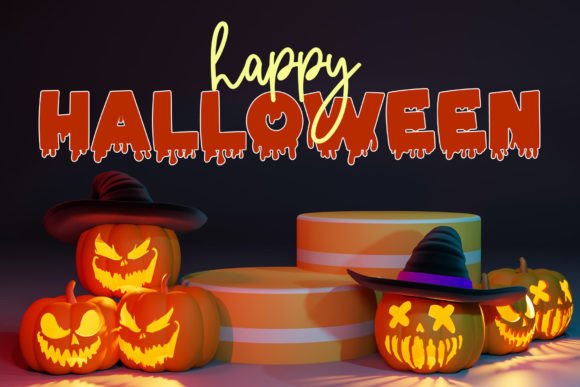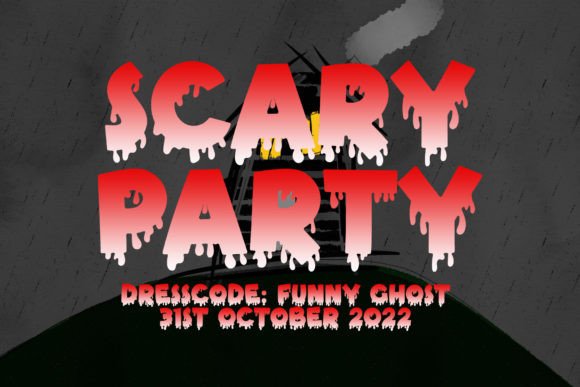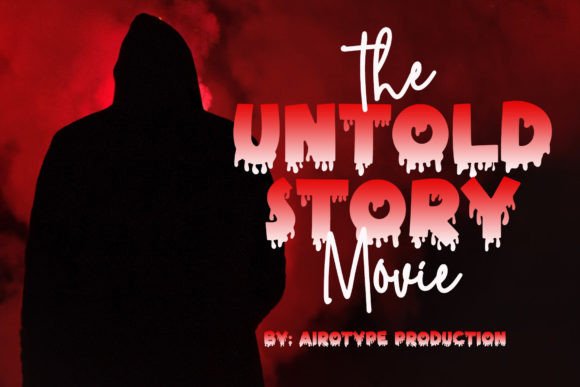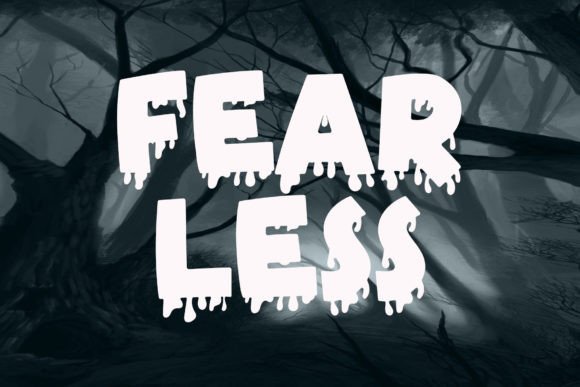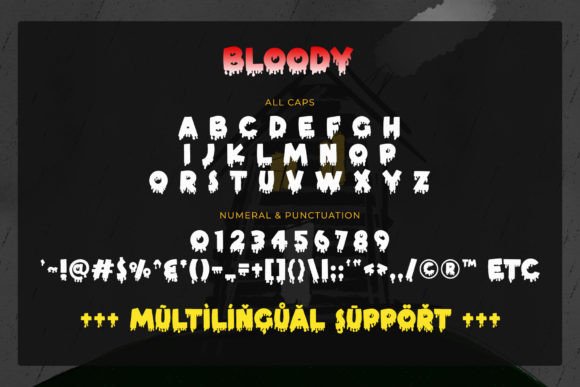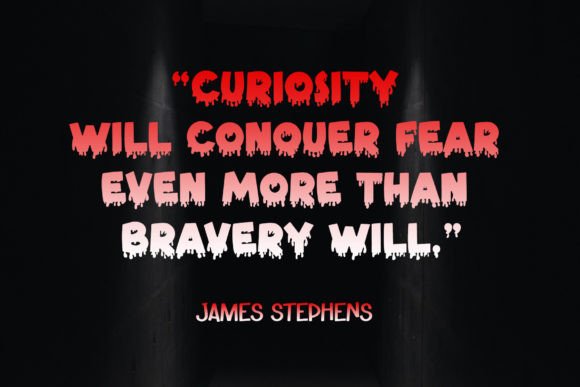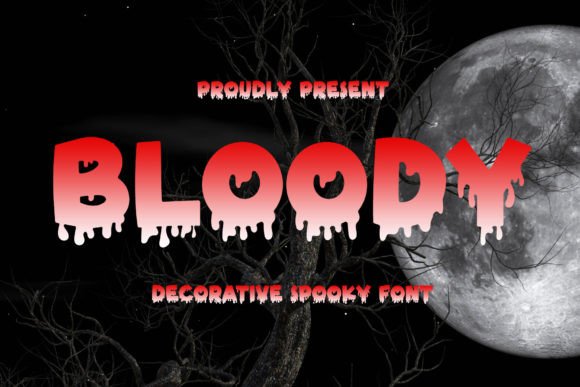
Bloody Font: The Spookiest Addition to Your Font Collection
Are you a designer or crafter looking to add a touch of horror to your projects? Look no further than the Bloody Font, a spooky and scary decorative font inspired by the Halloween holiday. This font is perfect for creating eye-catching designs that are sure to grab everyone’s attention.
What is Bloody Font?
Bloody Font is a unique and terrifying decorative font that is designed to evoke the spirit of Halloween. Its bold and eerie letters are perfect for creating horror-themed designs, from creepy posters and flyers to haunted invitations and party decorations. Whether you’re a professional designer or a DIY crafter, Bloody Font is sure to add a touch of spookiness to your projects.
Features of Bloody Font
- Spooky and Scary Design: Bloody Font is designed to be eerie and unsettling, making it perfect for horror-themed designs.
- Decorative and Ornate: This font features intricate and ornate letters that are sure to add a touch of drama to your designs.
- Perfect for Halloween: Bloody Font is inspired by the Halloween holiday, making it the perfect choice for designs related to the spookiest time of the year.
Uses of Bloody Font
Bloody Font is a versatile font that can be used in a variety of designs and crafting projects, including:
- Horror-themed Posters and Flyers: Create eye-catching posters and flyers for horror movies, haunted houses, or Halloween parties.
- Creepy Invitations: Design spooky invitations for Halloween parties, horror-themed events, or haunted gatherings.
- DIY Crafts: Use Bloody Font to add a touch of horror to your DIY crafts, such as Halloween decorations, party favors, or gift tags.
- Social Media Graphics: Create spooky social media graphics to promote your horror-themed designs or events.
Why Choose Bloody Font?
There are many fonts available that claim to be spooky or scary, but Bloody Font stands out from the rest. Here are just a few reasons why:
- Unique Design: Bloody Font features a unique and original design that is sure to grab attention.
- High-quality: This font is designed to be high-quality and easy to read, even at small sizes.
If you’re looking to add a touch of horror to your designs or crafting projects, Bloody Font is the perfect choice. With its spooky and scary design, decorative and ornate letters, and ease of use, this font is sure to become a staple in your font collection. So why wait? Add Bloody Font to your collection today and start creating eye-catching designs that are sure to grab everyone’s attention!